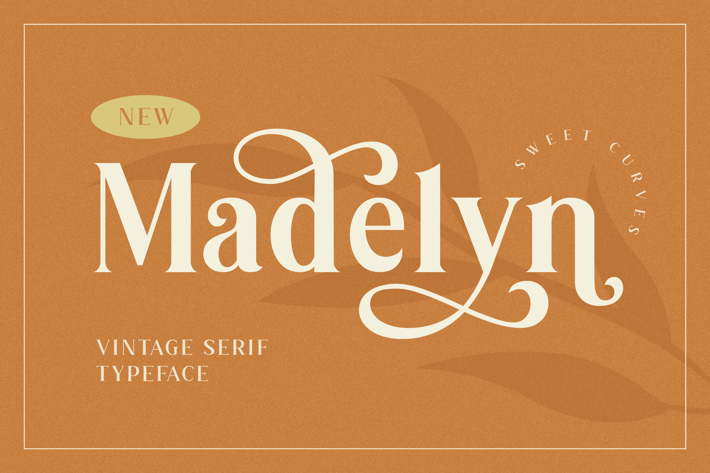
Vintage Serif Font
Madelyn is a bold modern vintage serif typeface with sweet curves that will make your logo or brand even more stunning and stand out! The Madelyn will be perfect for many projects: fashion, magazines, logo, branding, photography, product packaging, advertisements, etc.
Alternates
Numerals & Punctuation